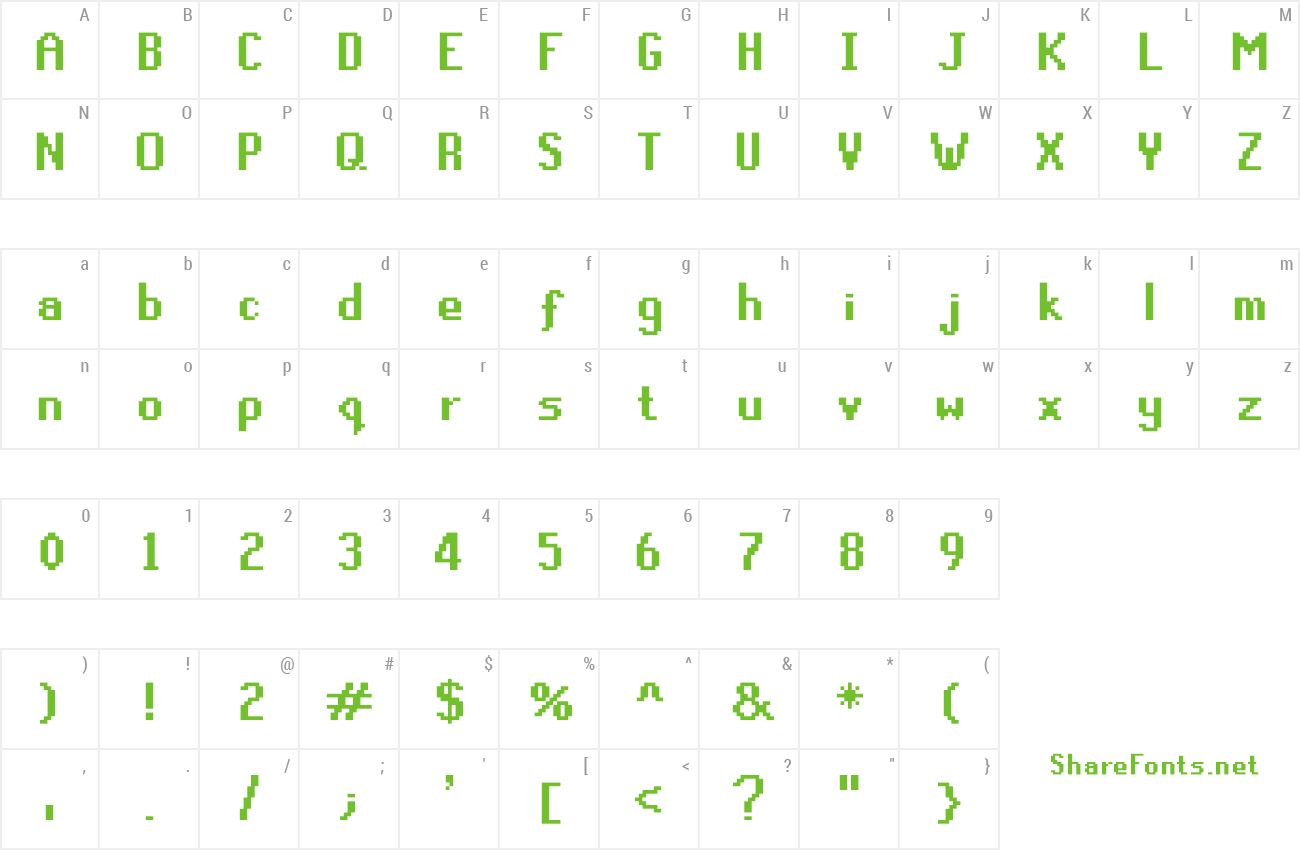
Runescape Font Generator
Runescape Font Generator - Runescape font files are indispensable for screenshot faking and machinima. Web an accurate recreation of the font used on menu titles and chat bubbles (yellow text) in old school runescape. Without them, you'd need to. This is just simple text with color, as shown in the screenshot on.
This is just simple text with color, as shown in the screenshot on. Without them, you'd need to. Web an accurate recreation of the font used on menu titles and chat bubbles (yellow text) in old school runescape. Runescape font files are indispensable for screenshot faking and machinima.
Runescape font files are indispensable for screenshot faking and machinima. This is just simple text with color, as shown in the screenshot on. Without them, you'd need to. Web an accurate recreation of the font used on menu titles and chat bubbles (yellow text) in old school runescape.
Runescape font files are indispensable for screenshot faking and machinima. Without them, you'd need to. This is just simple text with color, as shown in the screenshot on. Web an accurate recreation of the font used on menu titles and chat bubbles (yellow text) in old school runescape.
This is just simple text with color, as shown in the screenshot on. Without them, you'd need to. Runescape font files are indispensable for screenshot faking and machinima. Web an accurate recreation of the font used on menu titles and chat bubbles (yellow text) in old school runescape.
Without them, you'd need to. This is just simple text with color, as shown in the screenshot on. Runescape font files are indispensable for screenshot faking and machinima. Web an accurate recreation of the font used on menu titles and chat bubbles (yellow text) in old school runescape.
Runescape font files are indispensable for screenshot faking and machinima. Web an accurate recreation of the font used on menu titles and chat bubbles (yellow text) in old school runescape. Without them, you'd need to. This is just simple text with color, as shown in the screenshot on.
Without them, you'd need to. This is just simple text with color, as shown in the screenshot on. Web an accurate recreation of the font used on menu titles and chat bubbles (yellow text) in old school runescape. Runescape font files are indispensable for screenshot faking and machinima.
Web an accurate recreation of the font used on menu titles and chat bubbles (yellow text) in old school runescape. Runescape font files are indispensable for screenshot faking and machinima. Without them, you'd need to. This is just simple text with color, as shown in the screenshot on.
This is just simple text with color, as shown in the screenshot on. Without them, you'd need to. Web an accurate recreation of the font used on menu titles and chat bubbles (yellow text) in old school runescape. Runescape font files are indispensable for screenshot faking and machinima.
Runescape font files are indispensable for screenshot faking and machinima. Without them, you'd need to. This is just simple text with color, as shown in the screenshot on. Web an accurate recreation of the font used on menu titles and chat bubbles (yellow text) in old school runescape.
Runescape Font Family › Fontesk
Without them, you'd need to. Runescape font files are indispensable for screenshot faking and machinima. Web an accurate recreation of the font used on menu titles and chat bubbles (yellow text) in old school runescape. This is just simple text with color, as shown in the screenshot on.
Runescape Font Generator Fonts Pool
Without them, you'd need to. This is just simple text with color, as shown in the screenshot on. Runescape font files are indispensable for screenshot faking and machinima. Web an accurate recreation of the font used on menu titles and chat bubbles (yellow text) in old school runescape.
Runescape Font Files Are Indispensable For Screenshot Faking And Machinima.
This is just simple text with color, as shown in the screenshot on. Without them, you'd need to. Web an accurate recreation of the font used on menu titles and chat bubbles (yellow text) in old school runescape.